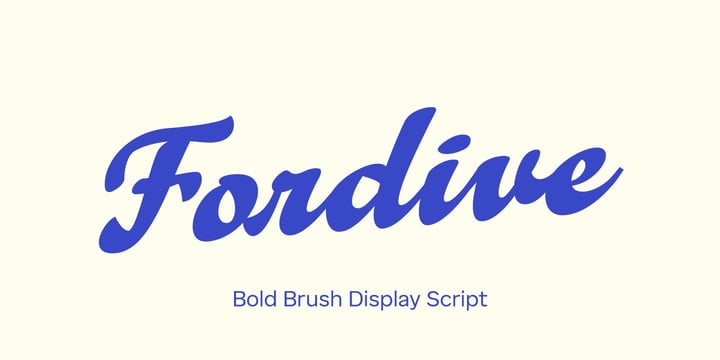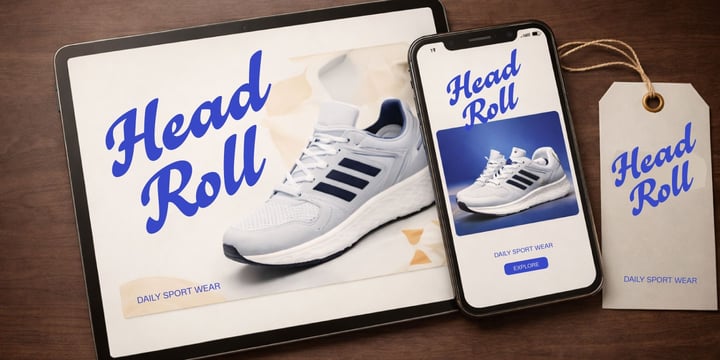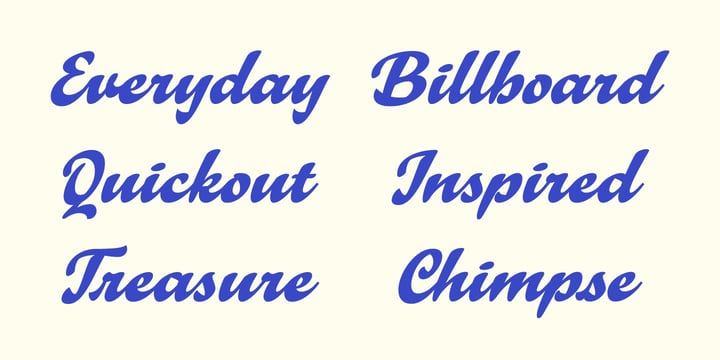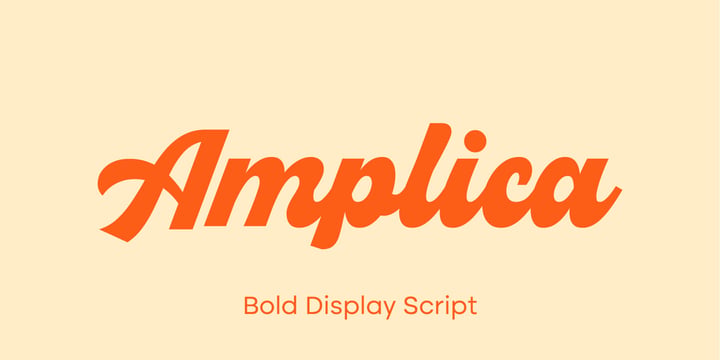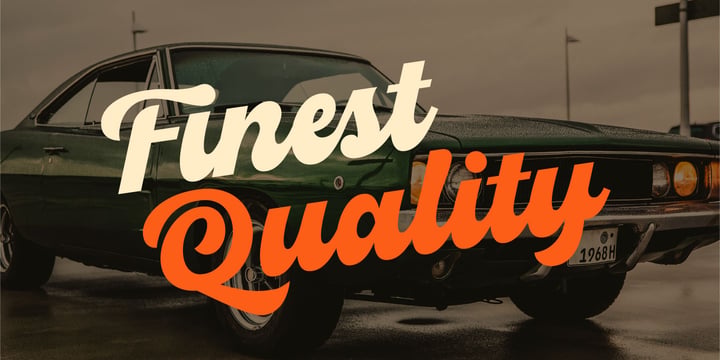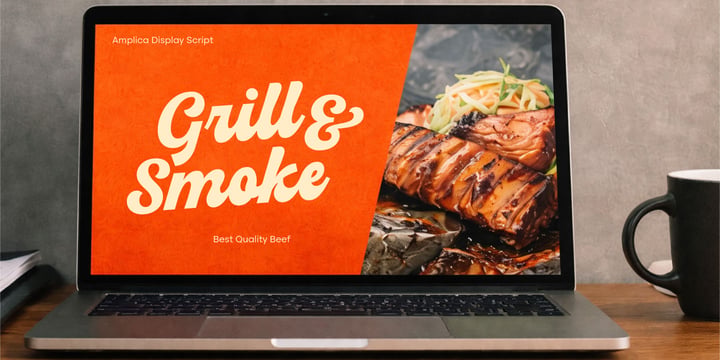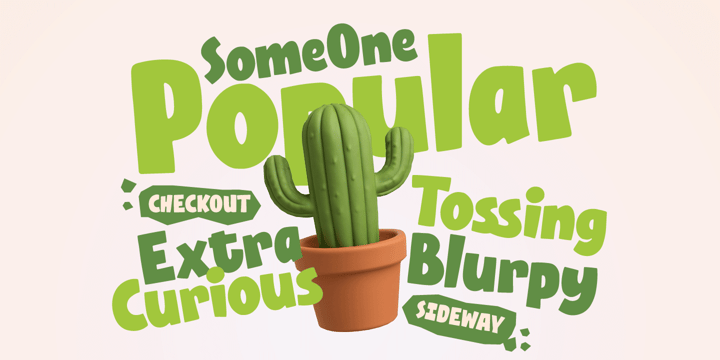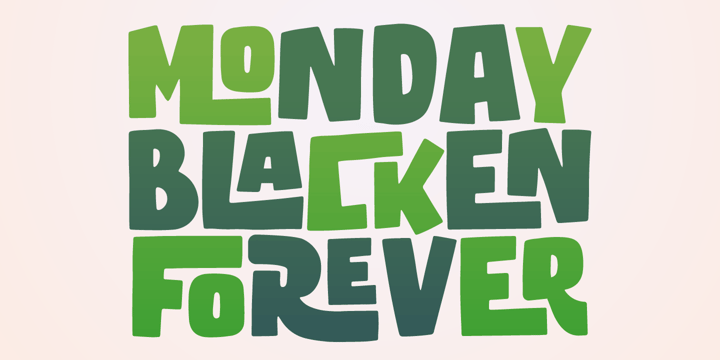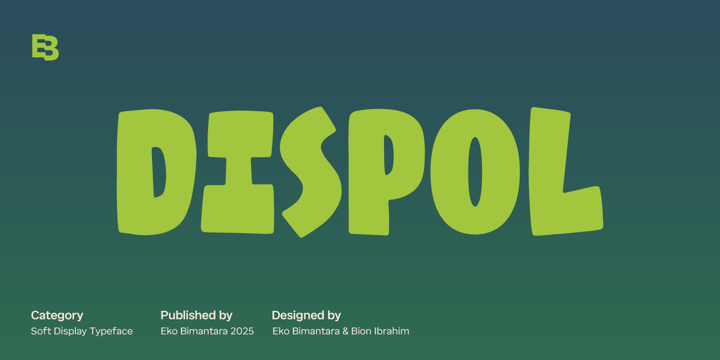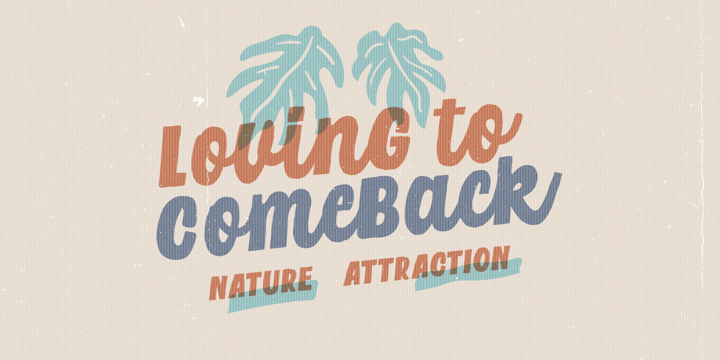
Biyono Ibrahim
I am a passionate font designer dedicated to crafting high-quality, original, and distinctive typefaces. With nearly a decade of professional experience as a graphic designer, I have developed a strong foundation in visual communication, branding, and aesthetic precision. My journey into type design began in 2019, driven by a deep curiosity about letterforms and their power to shape identity.
This year, I chose to focus fully on building my own type foundry, as I believe it is the right step toward establishing a sustainable business aligned with my true passion. My design approach is inspired by refined, elegant typefaces created with an artistic and thoughtful touch. I am particularly drawn to fonts that enhance logo identities and strengthen product branding. In certain contexts, I also enjoy developing handwritten styles, provided they are purposefully crafted and suitable for real-world applications.
Originality stands at the core of my work. I strongly oppose plagiarism and place great value on authenticity and integrity in design. For me, type design is not merely about creating letters, but about enjoying the entire creative process and transforming ideas into meaningful visual expressions.